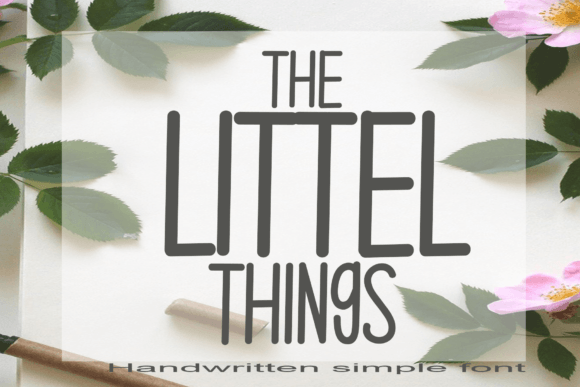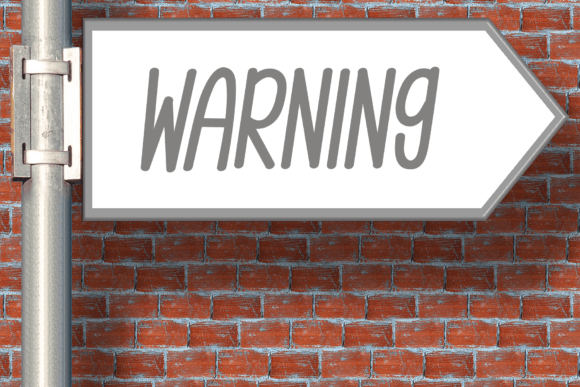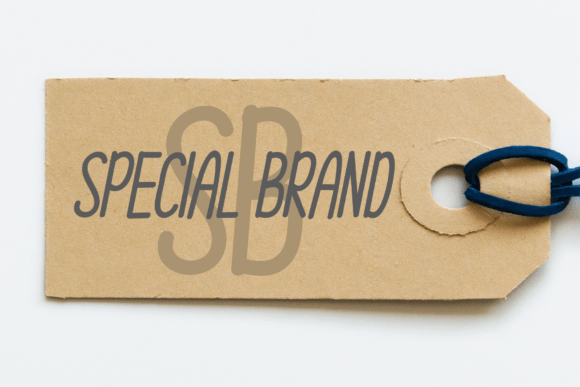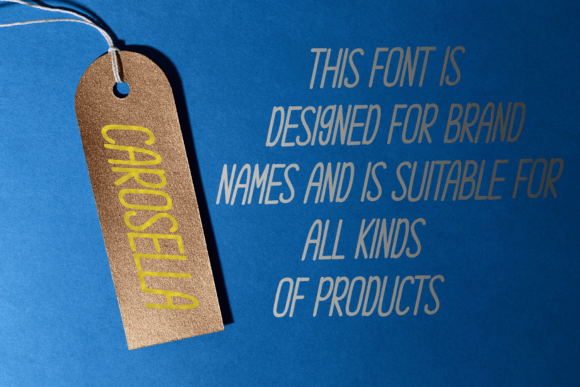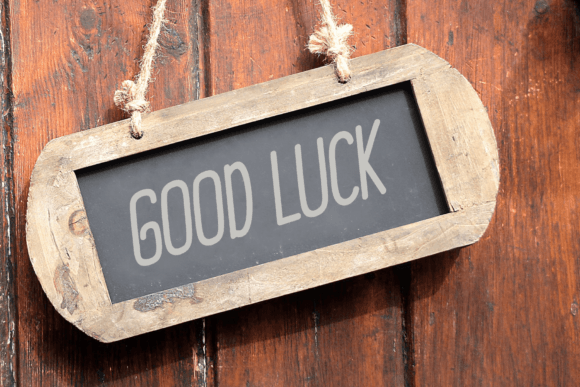
The Little Things Font
About The Little Things Font
“The Little Things” is a handwritten typeface that embodies delicacy, grace, and fluidity. With its lovely and well-balanced qualities, this font seamlessly complements a wide range of styles, making it a versatile choice for various design applications. By incorporating “The Little Things” into your most imaginative thoughts, you’ll witness how it brings a sense of life and charm to your creative ideas.
The delicate strokes and flowing curves of “The Little Things” contribute to its graceful aesthetic. Each letter is meticulously crafted, creating a harmonious and visually pleasing typeface. Whether you’re working on invitations, branding, or any other design project, this font adds a touch of elegance that enhances the overall visual appeal.
The versatility of “The Little Things” allows it to adapt to different styles effortlessly. Its ability to seamlessly integrate with various design elements and themes makes it an ideal choice for expressing creativity across a spectrum of projects. Whether your style is modern and minimalist or detailed and decorative, “The Little Things” serves as a versatile canvas for your vision.
As you explore the possibilities with “The Little Things,” let your most imaginative thoughts come to life. Whether you’re enhancing the warmth of a handwritten note or adding a whimsical touch to branding materials, this handwritten typeface becomes a conduit for a myriad of creative expressions. Embrace the subtle beauty and balance of “The Little Things,” allowing it to be the enchanting element that brings your ideas to fruition.
Incorporate “The Little Things” into your designs, and experience the delicate, graceful, and flowing characteristics that it imparts. This font goes beyond being a typeface; it becomes a companion in your creative journey, enhancing your projects with the charm and elegance of the little things that make design memorable.